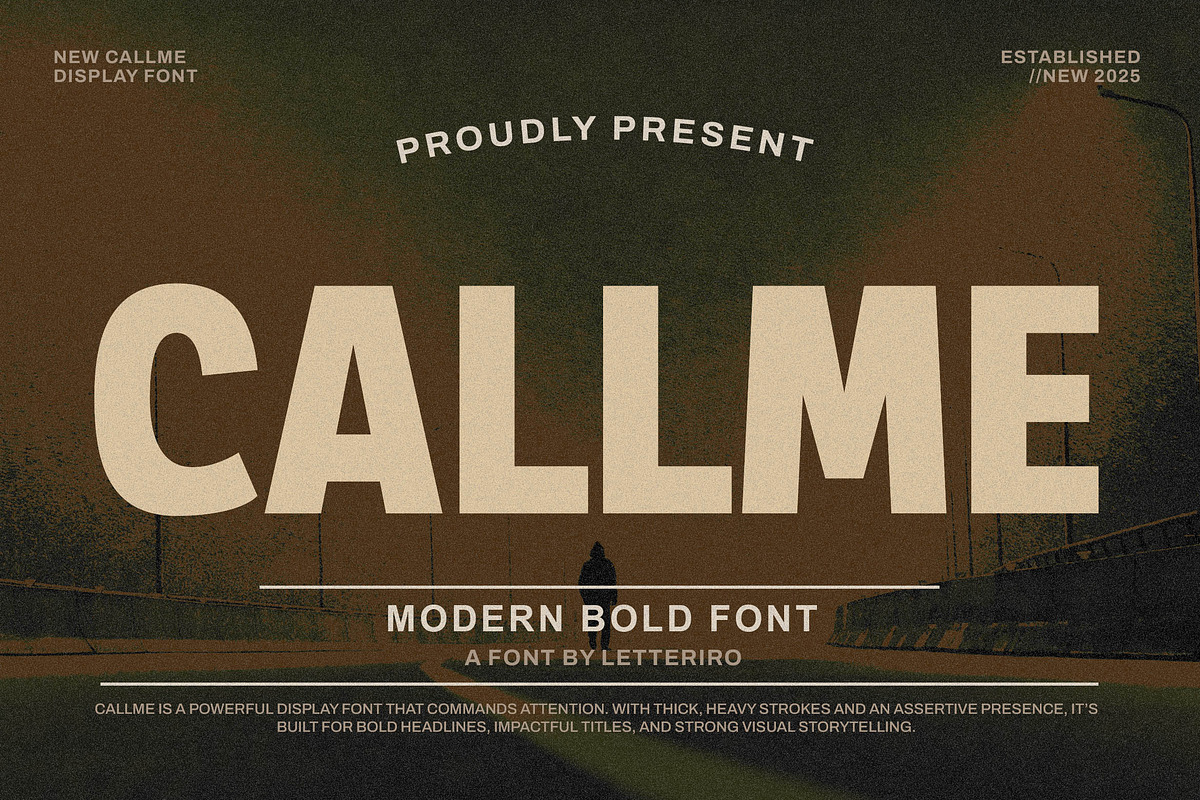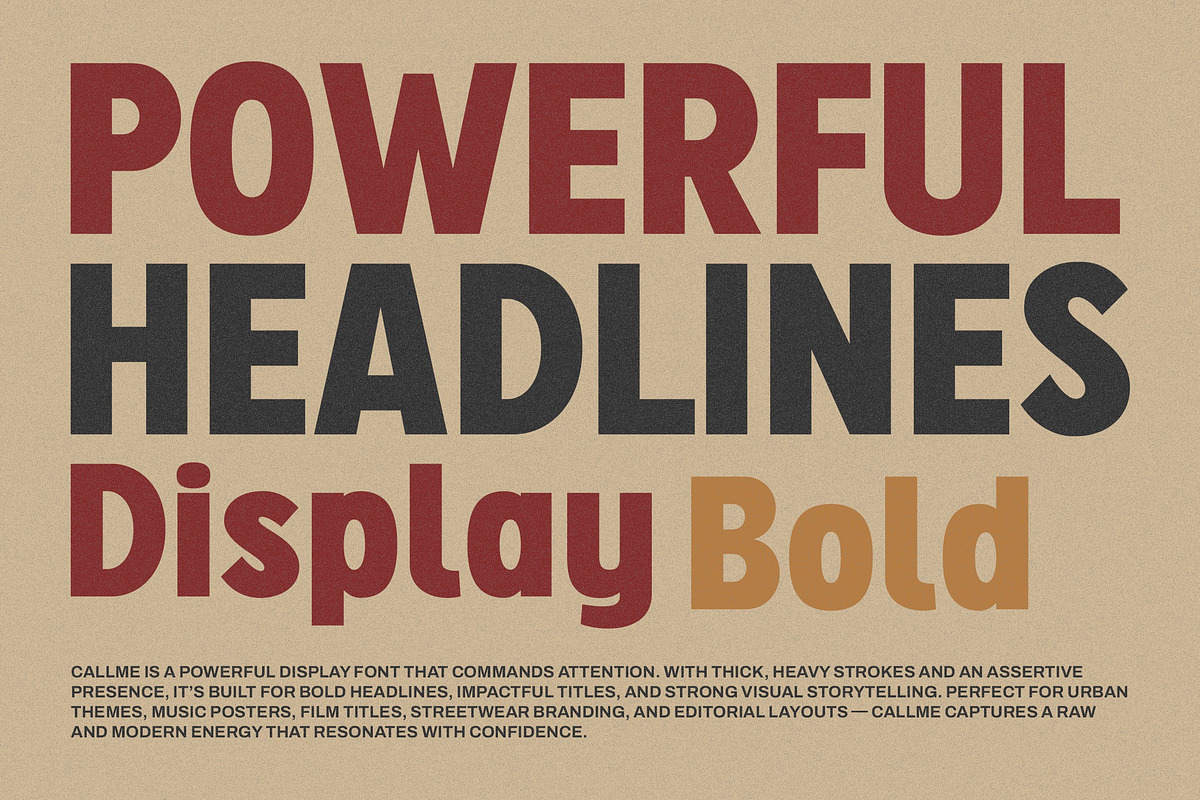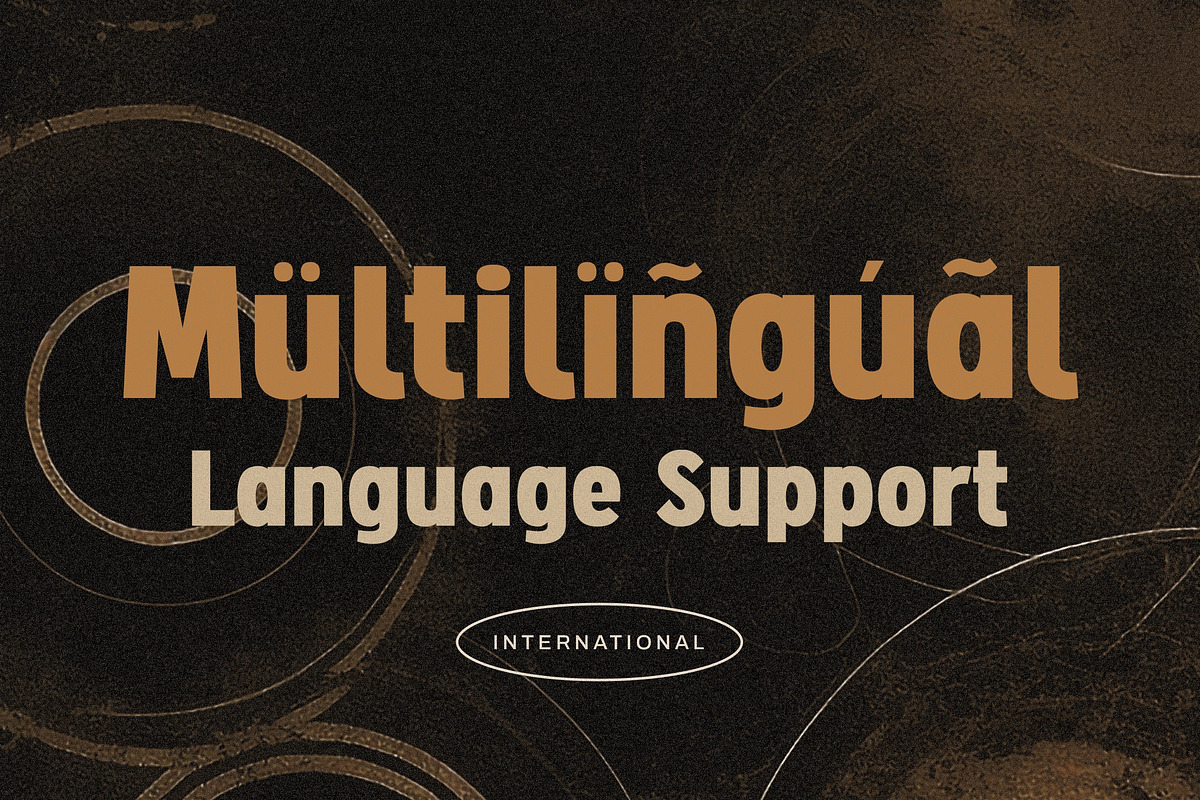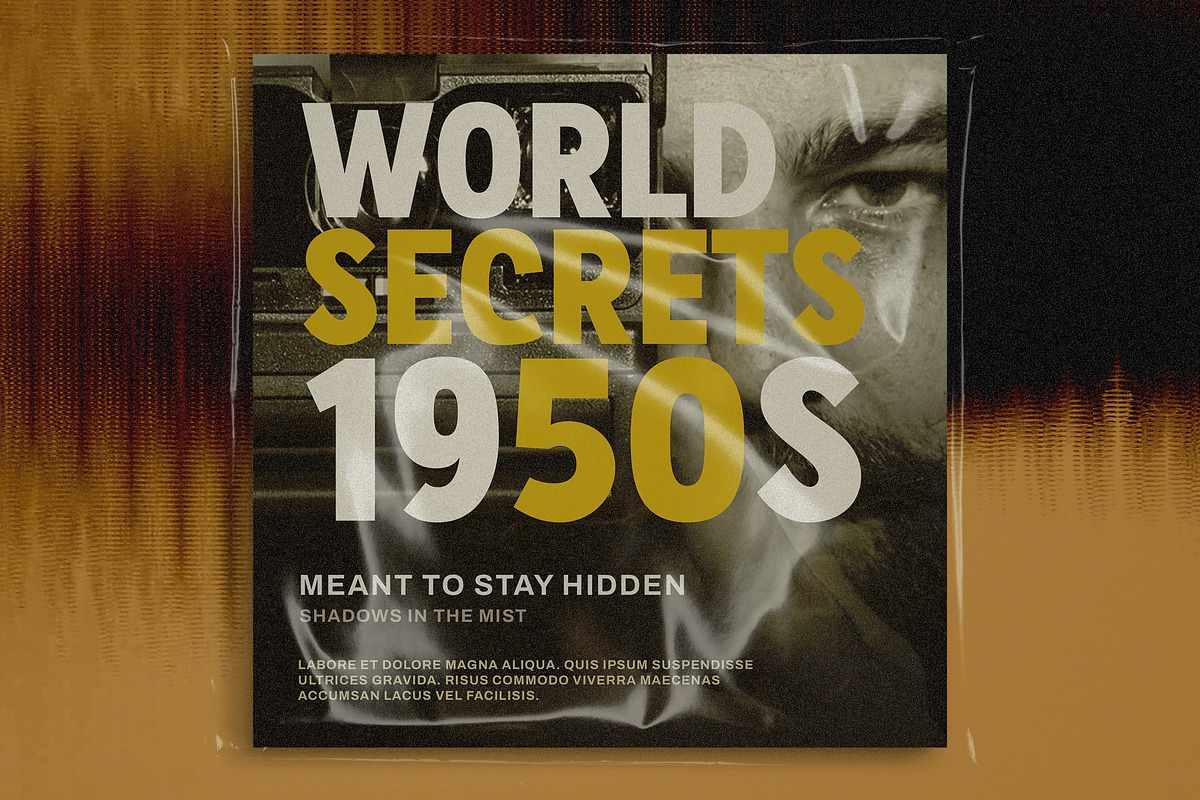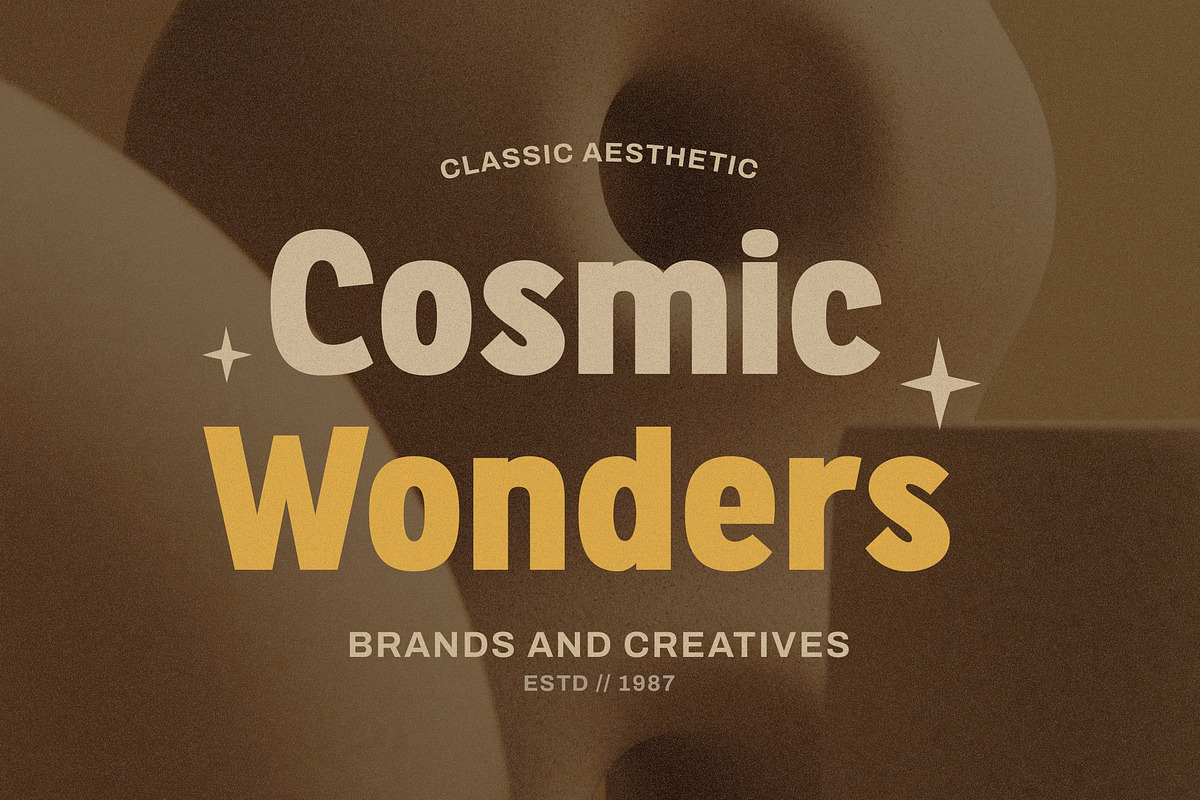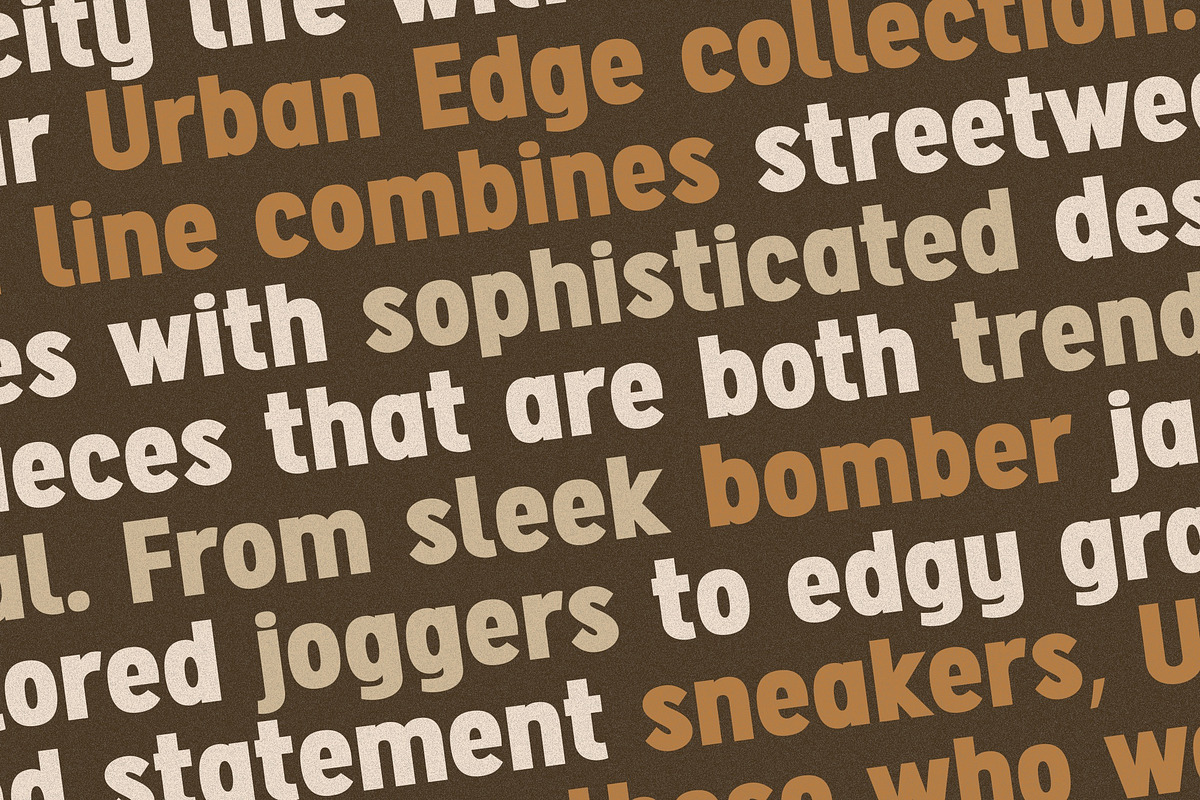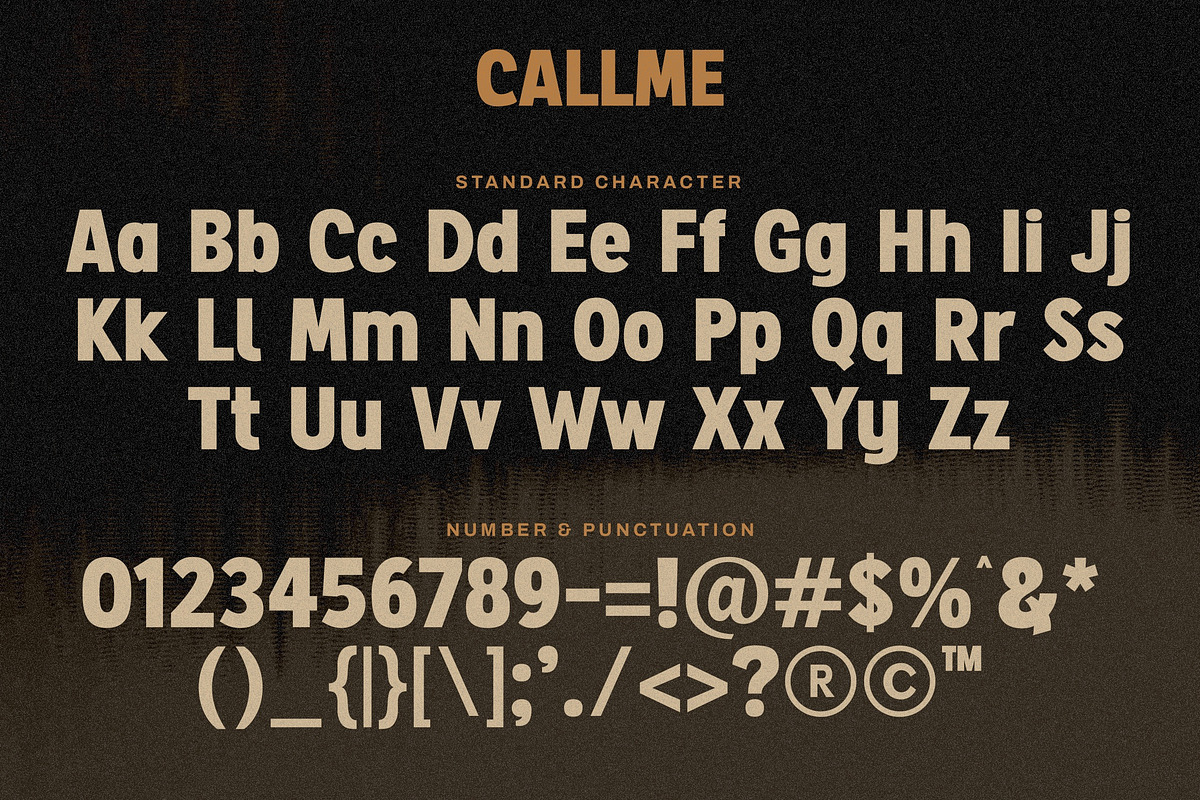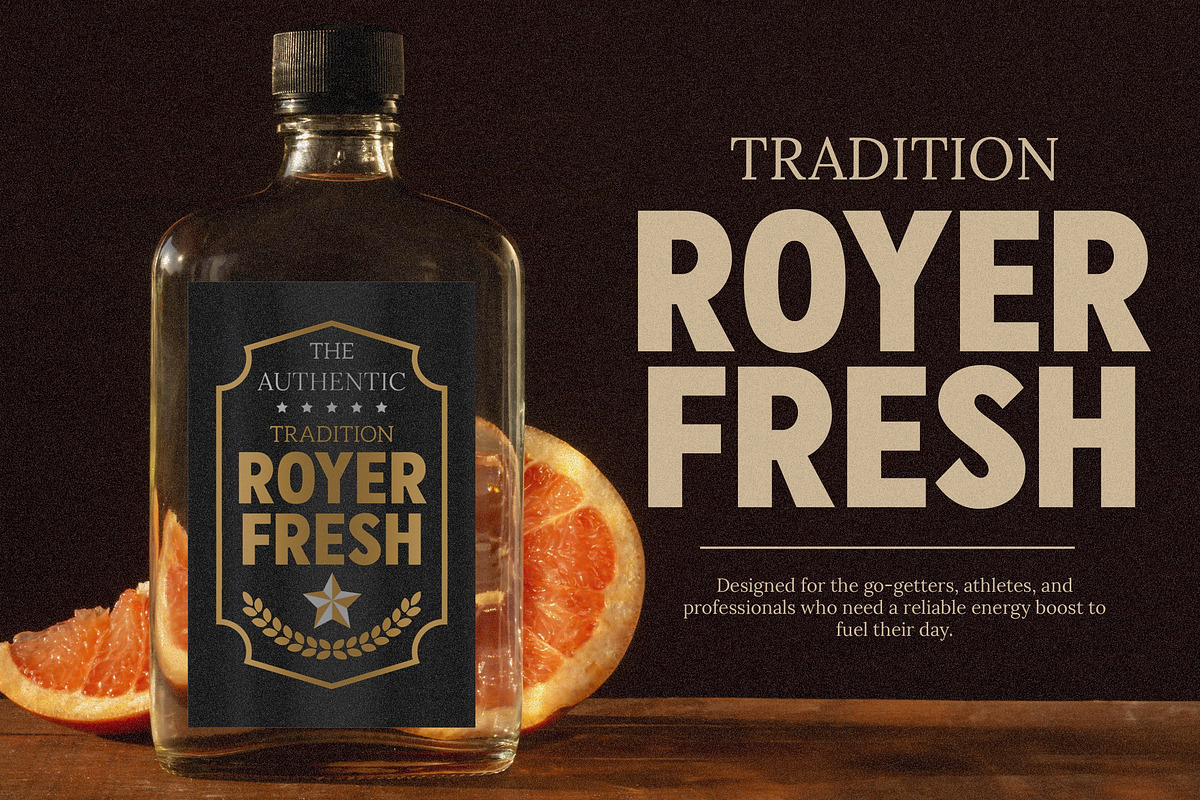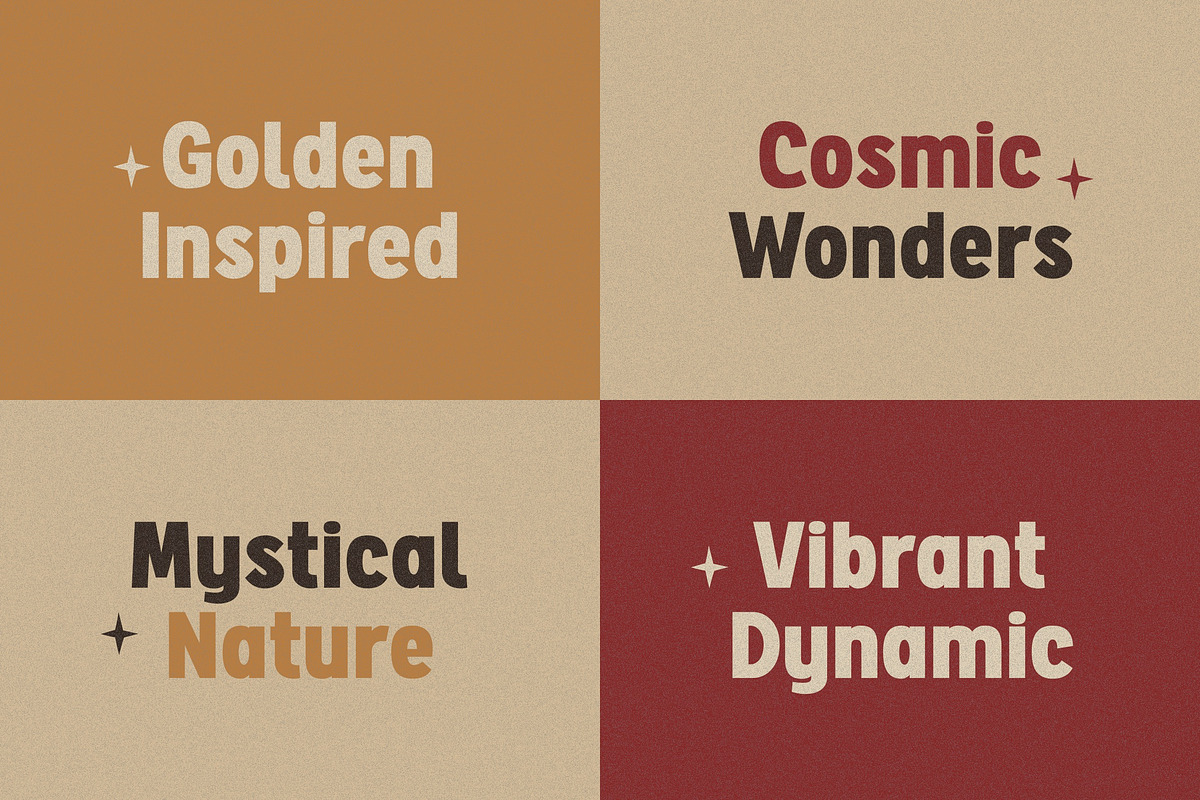
Callme - Modern Bold Font
Callme – Bold Urban Display Sans Font
Callme is a bold sans serif font built to make a statement. Featuring thick strokes, solid structure, and a no-nonsense appearance, this typeface is designed for bold headlines, urban advertising, impactful posters, logo, and modern visual storytelling.
Its strong geometric forms create a confident presence across any medium—whether digital or print. With a clean and assertive tone, Callme is perfect for titles, signage, marketing campaigns, street-themed projects, and anything that needs to grab attention fast. Unlike many bold display fonts, Callme includes both uppercase and lowercase characters, giving you flexibility to create varied layouts while keeping a strong, cohesive look.
This font reflects power, clarity, and control in every letter.
Bold Urban Style – Built with heavy strokes and sharp edges for maximum impact
Sans Serif Typeface – Clean and modern sans serif structure
Uppercase & Lowercase – Full alphabet support for better layout control
Full Character Set – Includes numbers, punctuation, and symbols
Multilingual Support – Supports Western European languages
Advertising Projects – Posters, billboards, product promos
Modern Branding – For bold and direct identity design
Headlines & Titles – High-impact designs for editorial or digital use
Urban Design – Street visuals, events, and signage
Motion Graphics – Strong readability for kinetic typography
Callme is not just bold—it’s sharp, focused, and built for maximum impact in modern design.